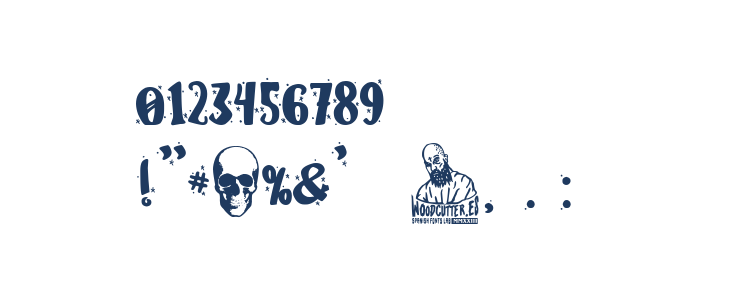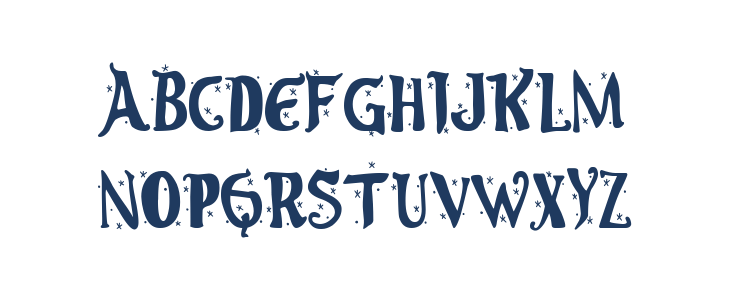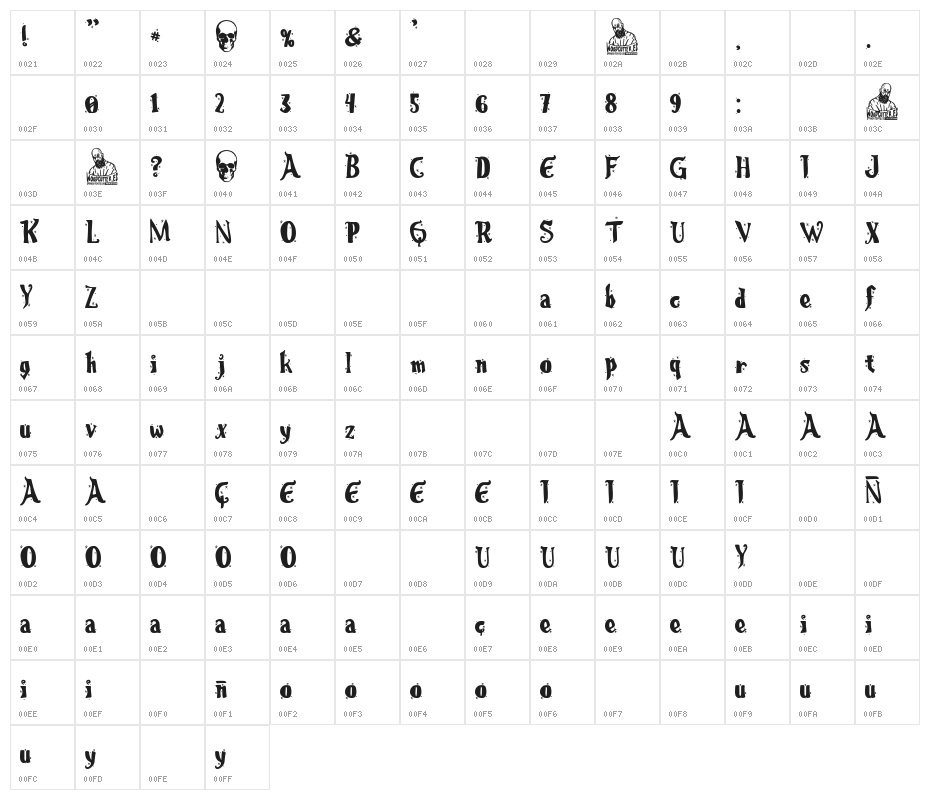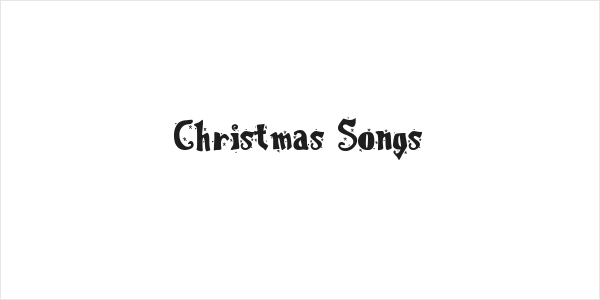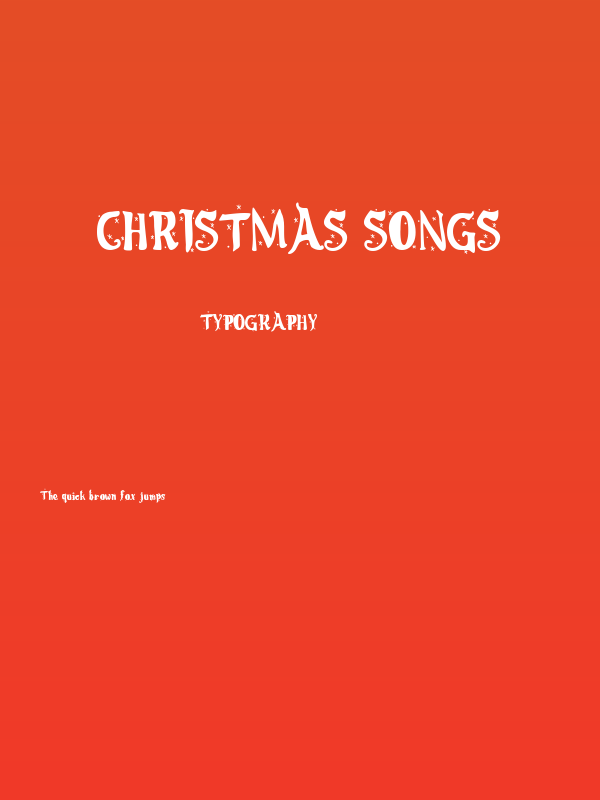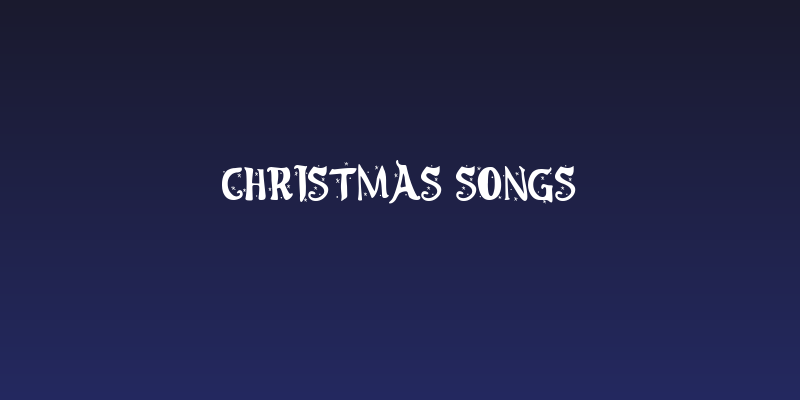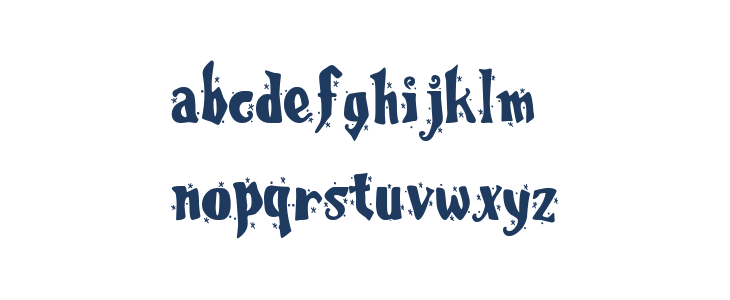
Christmas Songs Font
Christmas Songs Description
A whimsical decorative font with playful, irregular letterforms and scattered star-like embellishments, evoking a festive and magical atmosphere. The characters have a hand-drawn, slightly uneven appearance, contributing to a lively and informal style.
| Overall Style | Decorative, Festive, Whimsical |
| Use Case | Headlines, Posters, Greeting cards, Themed logos |
| Proposed Projects | Holiday cards, party invitations, festive posters, children's event materials, themed branding. |